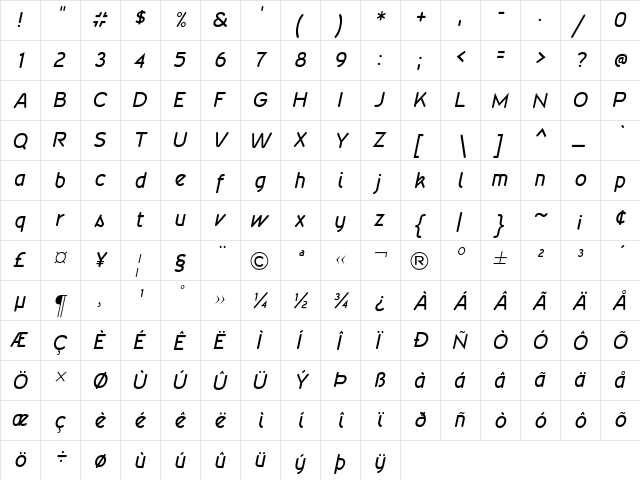
Wevli Medium Italic
Design Context for Wevli Typeface
Wevli takes a measured approach to typography — its balanced proportions and neutral character make it a reliable workhorse for both digital and print work. Its italic angle brings a sense of urgency and motion to the letterforms.
Pro Tip: Try Wevli for annotation and caption copy alongside an upright companion — the contrast in angle creates a dynamic but ordered typographic system.